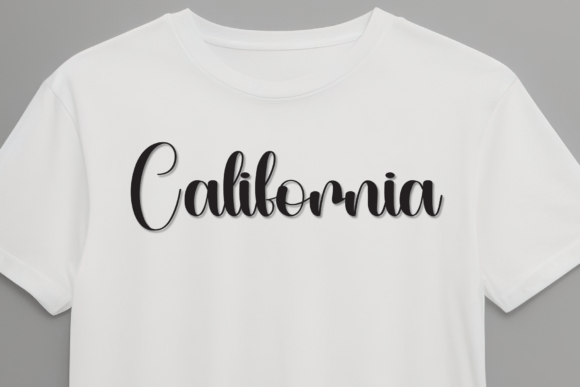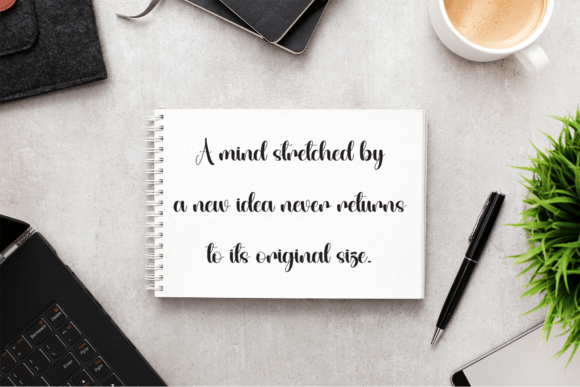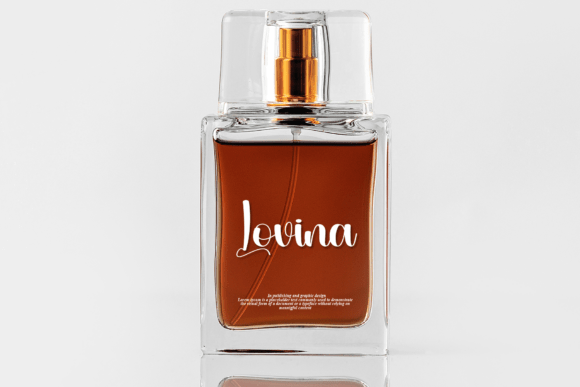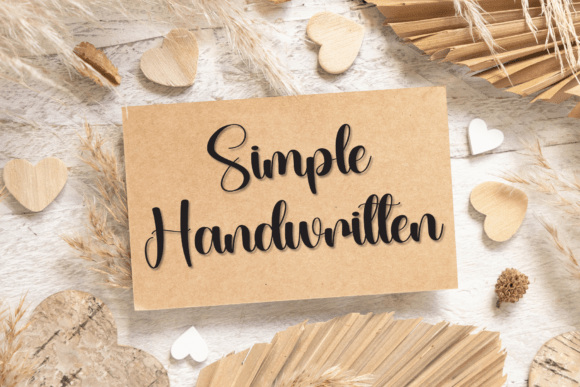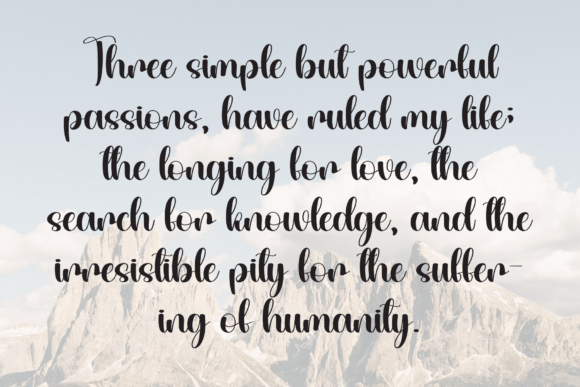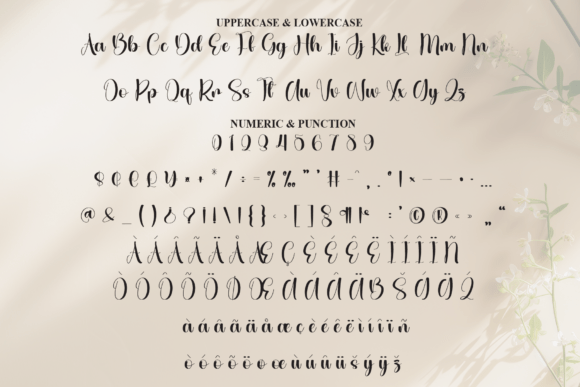
The Power of Aesthetic Fonts: Elevate Your Design with Curvaceous Style
In the world of typography, fonts play a crucial role in conveying the tone and personality of a brand or design. Among the numerous font styles available, aesthetic fonts have gained significant popularity, particularly among designers and crafters. One such font that has caught attention is Aesthetic, a bold, curvaceous script font that exudes luxury and sophistication. In this article, we’ll explore the features and applications of Aesthetic font, and how it can elevate your design to the next level.
What is Aesthetic Font?
Aesthetic is a modern script font characterized by its smooth swashes and stylish loops. Its curvaceous design creates a luxurious feel, making it perfect for designs that require a touch of elegance and sophistication. The font’s bold and confident appearance makes it ideal for logos, social media graphics, boutique branding, and eye-catching invitations.
Key Features of Aesthetic Font
- Curvaceous Design: Aesthetic font features smooth, flowing curves that create a sense of luxury and sophistication.
- Smooth Swashes: The font’s swashes add a touch of elegance, making it perfect for designs that require a high-end feel.
- Stylish Loops: Aesthetic’s loops are designed to add a touch of whimsy and playfulness, making it ideal for boutique branding and social media graphics.
- Bold and Confident: The font’s bold appearance makes it perfect for logos, headings, and titles that require attention-grabbing typography.
Applications of Aesthetic Font
Aesthetic font is versatile and can be used in various design applications, including:
- Logos: Create a lasting impression with Aesthetic font, perfect for luxury brands, boutiques, and high-end services.
- Social Media Graphics: Elevate your social media presence with eye-catching graphics featuring Aesthetic font.
- Boutique Branding: Add a touch of elegance to your boutique branding, including packaging, labels, and business cards.
- Invitations: Make your invitations stand out with Aesthetic font, perfect for weddings, parties, and special events.
Tips for Using Aesthetic Font
To get the most out of Aesthetic font, consider the following tips:
- Pair with Simple Fonts: Pair Aesthetic font with simple, clean fonts to create visual contrast and balance.
- Use for Headings: Use Aesthetic font for headings and titles to create a bold, attention-grabbing effect.
- Experiment with Colors: Experiment with different colors to find the perfect match for your brand or design.
Aesthetic font is a powerful tool for designers and crafters looking to add a touch of luxury and sophistication to their designs. Its curvaceous design, smooth swashes, and stylish loops make it perfect for logos, social media graphics, boutique branding, and eye-catching invitations. By incorporating Aesthetic font into your design, you can elevate your brand or design to the next level and create a lasting impression on your audience.